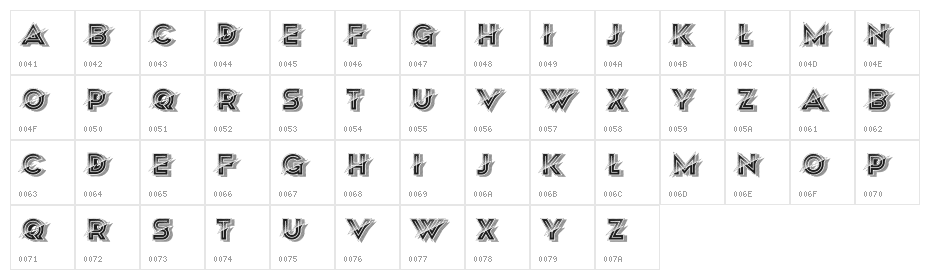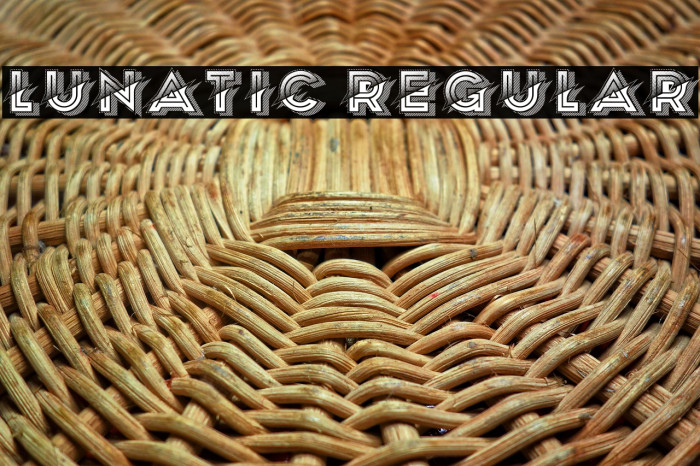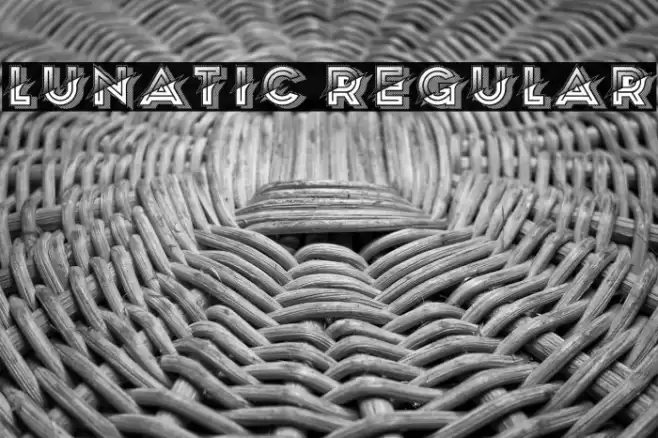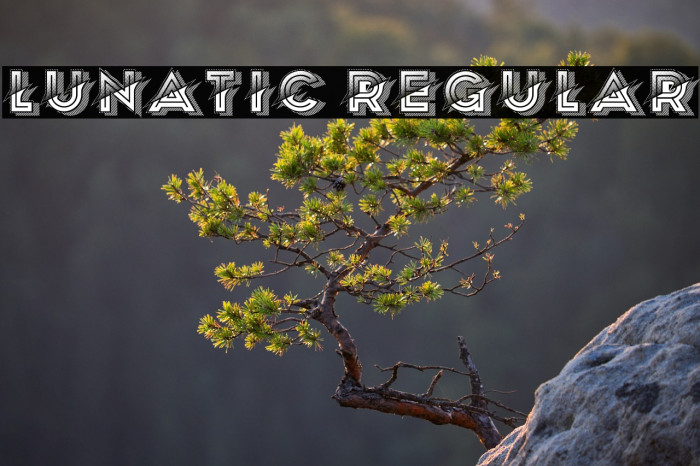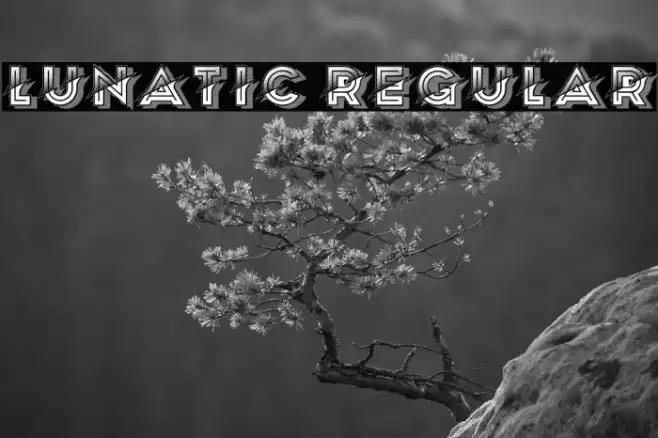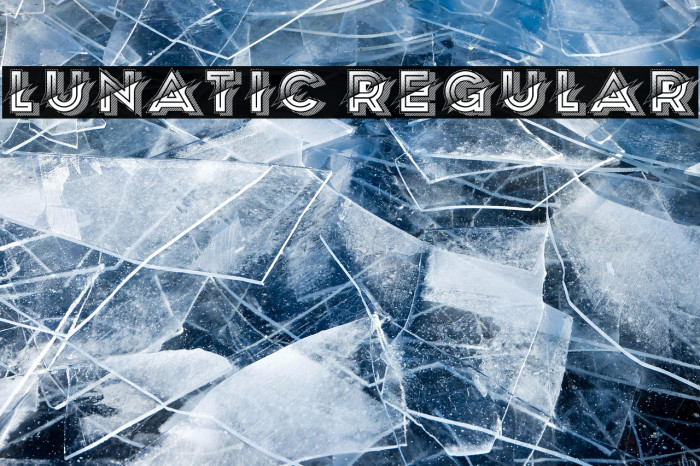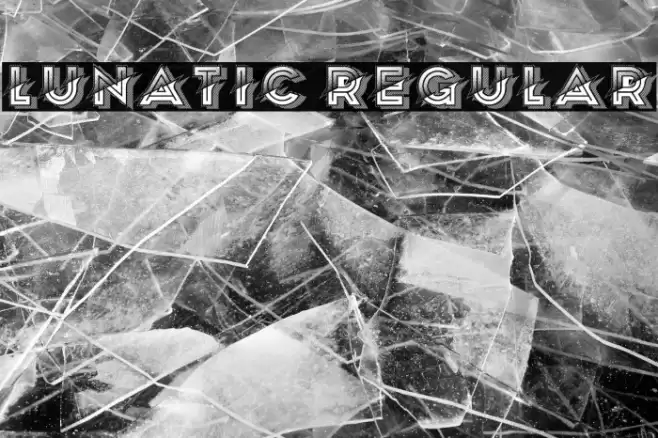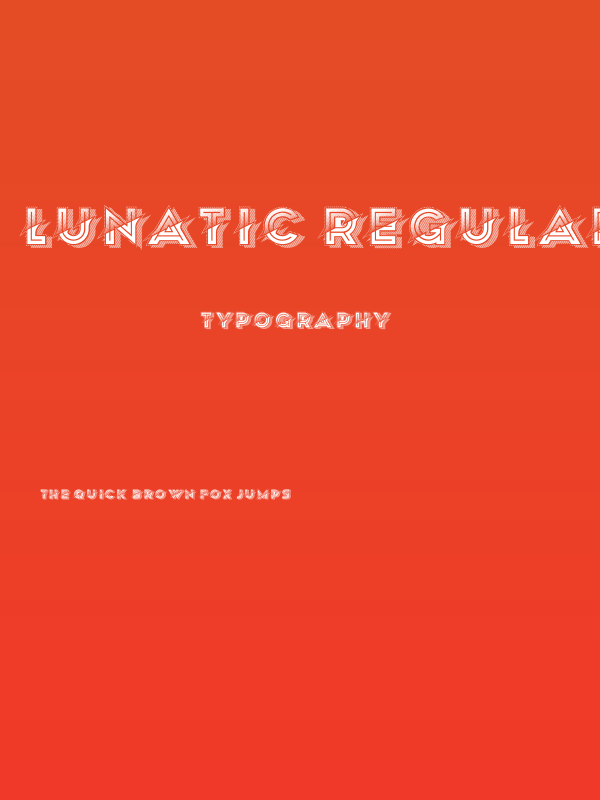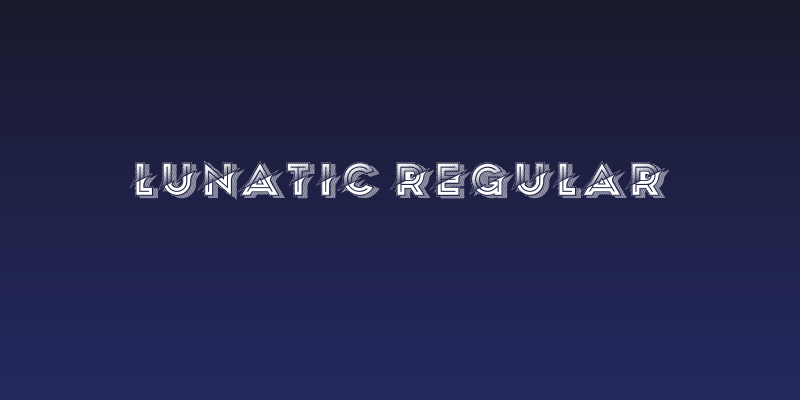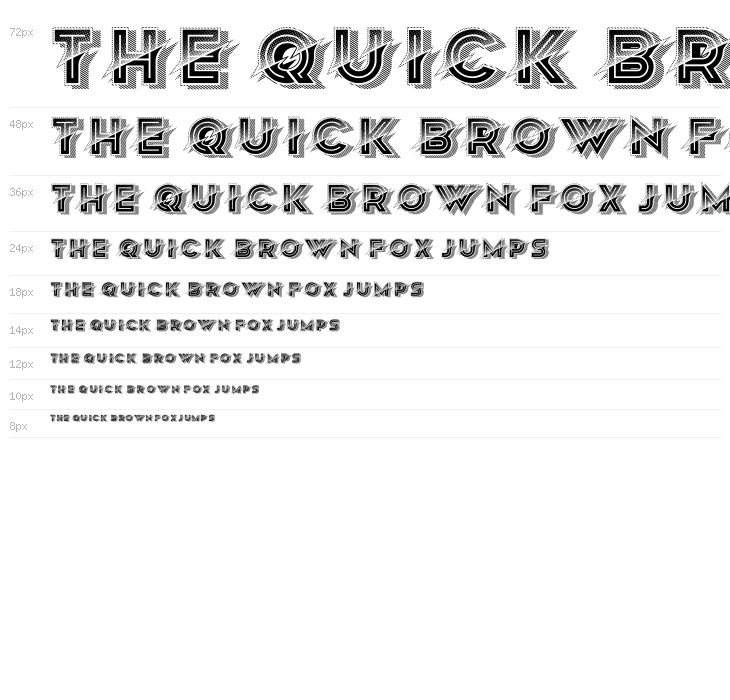
Lunatic Regular Font
Lunatic Regular Description
This font features a bold, geometric design with a unique layered effect, creating a sense of depth and dimension. Each character is constructed with multiple overlapping lines and shapes, giving it a dynamic and energetic appearance. The style is reminiscent of retro and futuristic aesthetics, combining elements of both to create a visually striking typeface. The use of sharp angles and clean lines adds to its modern appeal, while the intricate detailing provides a decorative touch. This font is ideal for projects that require a bold statement and a touch of creativity.